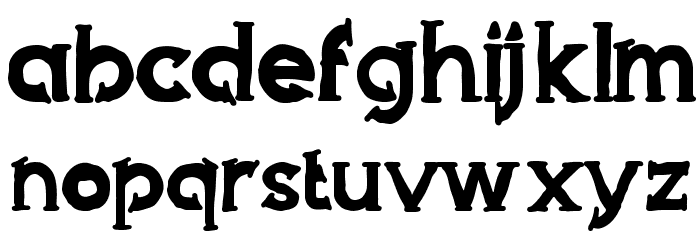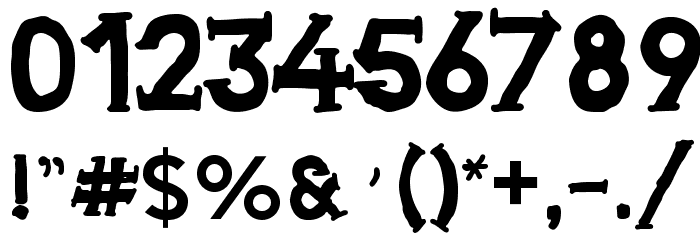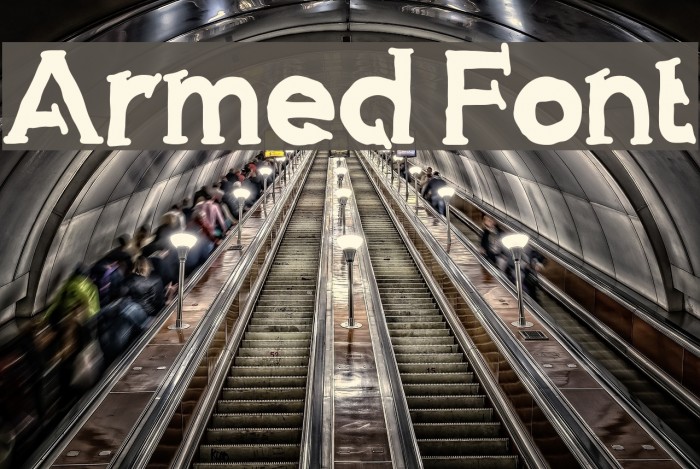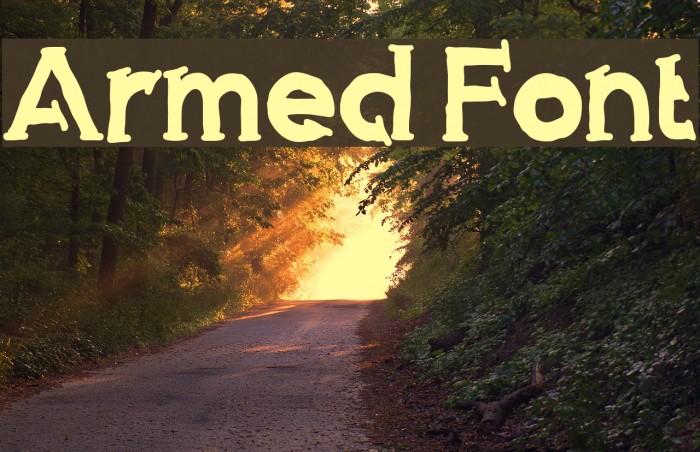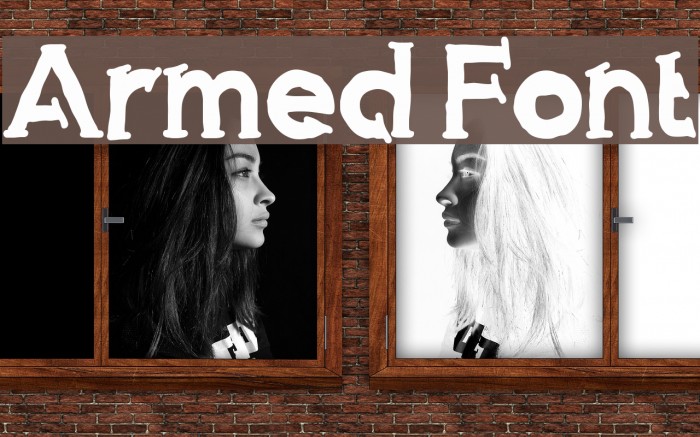
Armed Font
This font features a bold and rugged style, characterized by its thick strokes and slightly irregular edges, giving it a hand-drawn appearance. The uppercase letters are prominent and assertive, while the lowercase letters maintain a consistent weight, offering a cohesive look. The numbers are equally bold, ensuring visibility and impact. Special characters are designed with the same boldness, making them stand out. This font's unique style is reminiscent of vintage or western themes, making it suitable for designs that require a strong, eye-catching typeface.
A bold, rugged font with a hand-drawn, vintage style.
- Proposed Projects: Ideal for posters, branding, logos, and any design requiring a strong, vintage aesthetic.
- Overall Style: Vintage